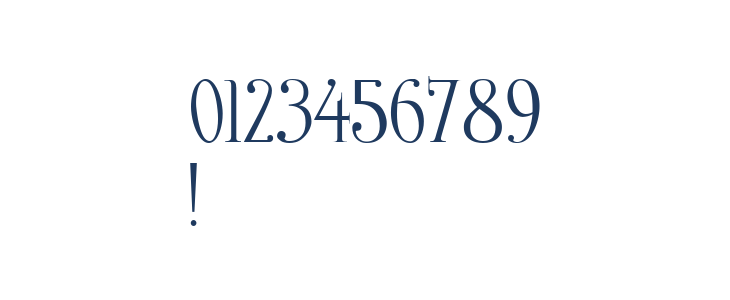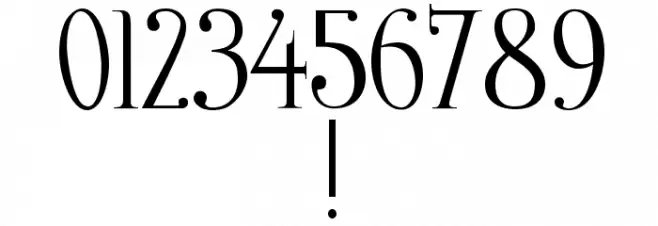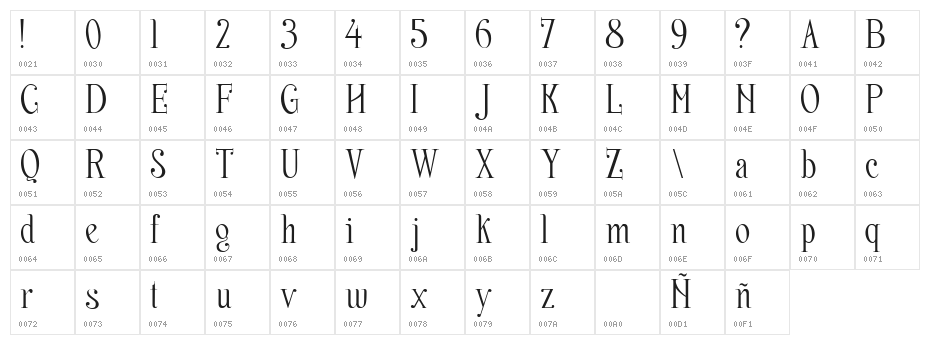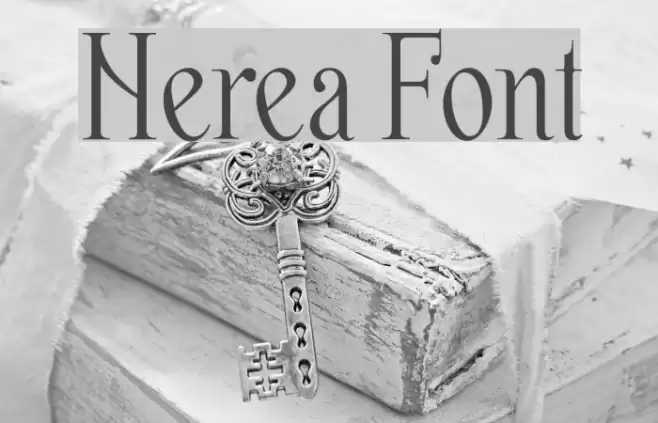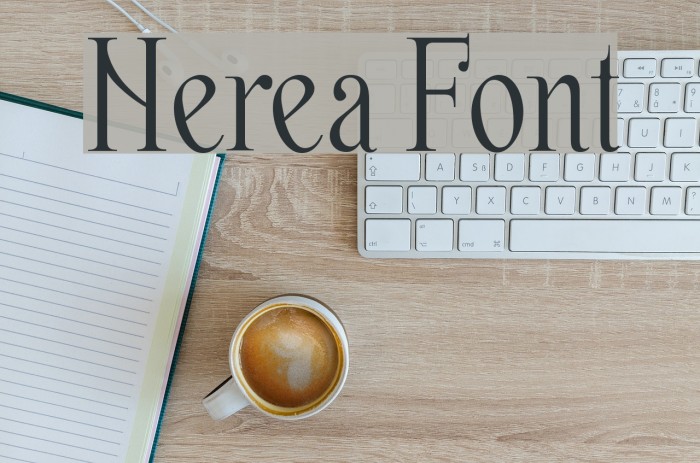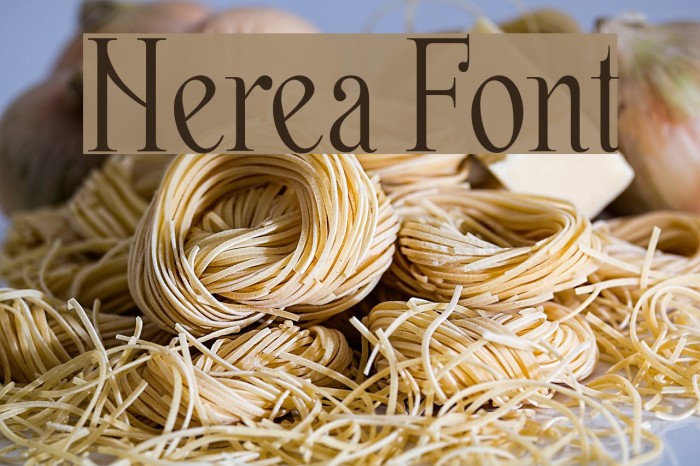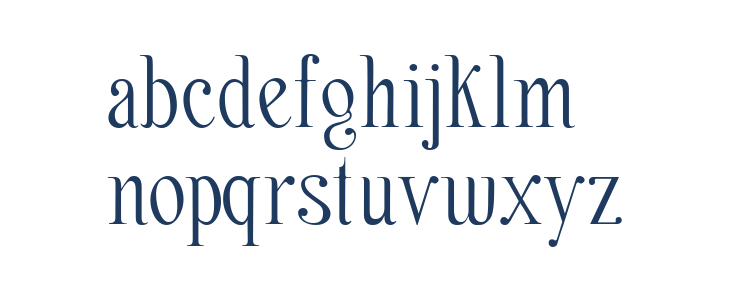
Nerea Font
Nerea Description
This font features a unique blend of elegance and playfulness, characterized by its tall, slender letterforms with subtle curves and flourishes. The uppercase letters exhibit a classic serif style with slight embellishments, while the lowercase letters maintain a consistent flow with gentle loops and rounded terminals. The numerals are distinct and easily readable, complementing the overall aesthetic. Special characters are designed with the same attention to detail, ensuring coherence across all glyphs. This font's sophisticated yet approachable appearance makes it versatile for various design applications.